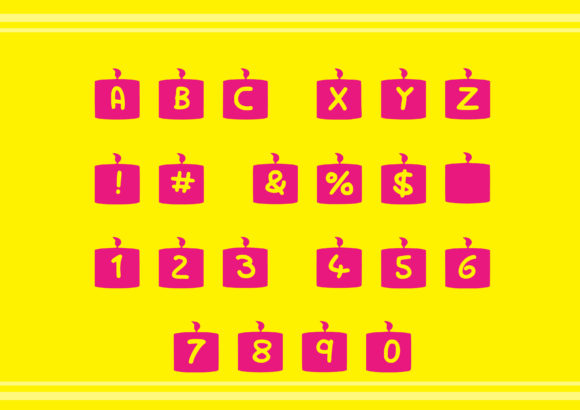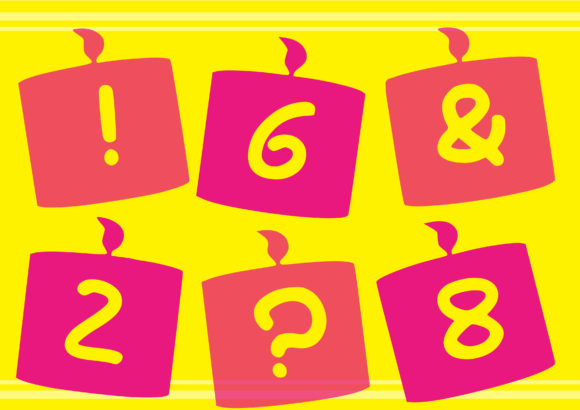
Play Candle Font – Free Download
Introduction to Play Candle Font
Play Candle is a cool looking and interesting decorative font, featuring a candle on each character.
Key Features of Play Candle Font
Why Choose Play Candle Font?